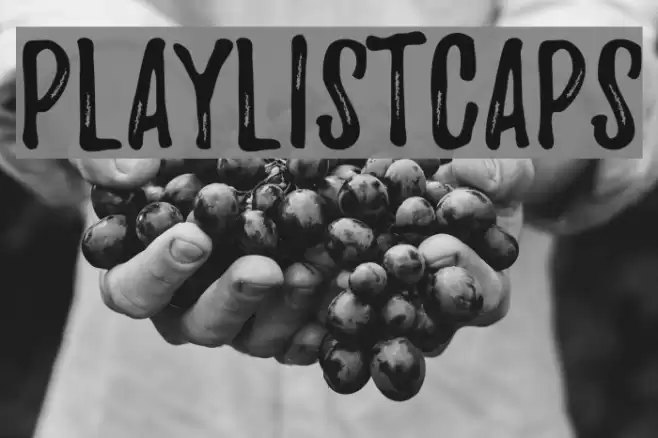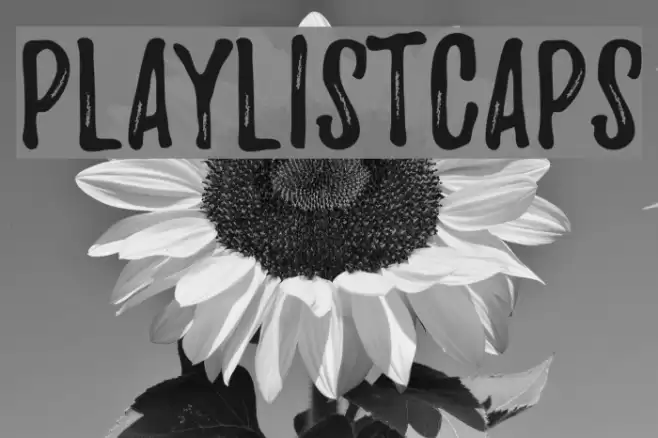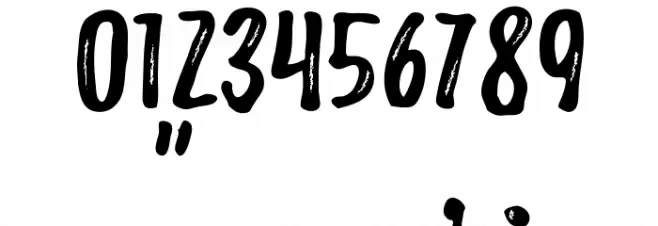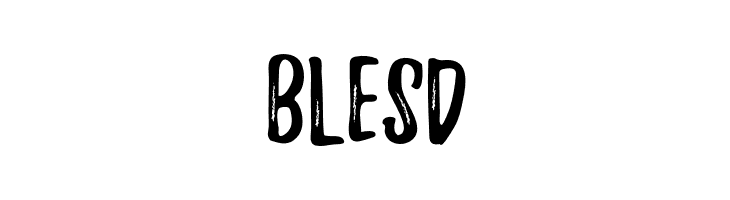
Playlist-Caps Font
Playlist-Caps Description
This font features a bold and expressive handwritten style, characterized by its brush-like strokes and dynamic flow. The uppercase letters are prominent and slightly irregular, giving a lively and energetic feel. The lowercase letters maintain the same brushstroke texture, creating a cohesive look. Numbers and special characters follow the same stylistic approach, ensuring consistency across all elements. The overall appearance is both artistic and informal, making it suitable for designs that require a personal touch.
A bold, brush-style handwritten font with dynamic strokes from Handwritten fonts.
- Proposed Projects: Ideal for creative projects such as posters, invitations, branding, and social media graphics where a personal and artistic touch is desired.